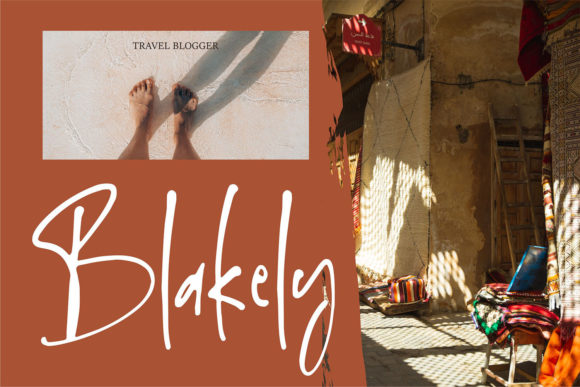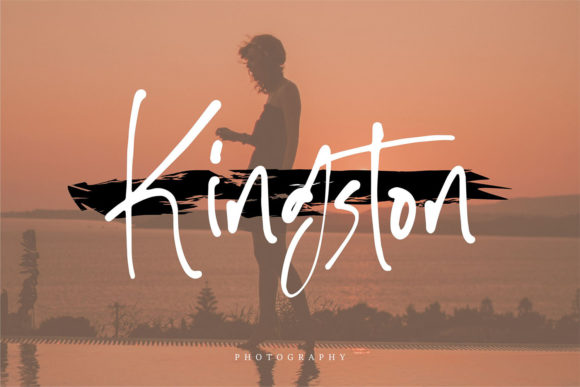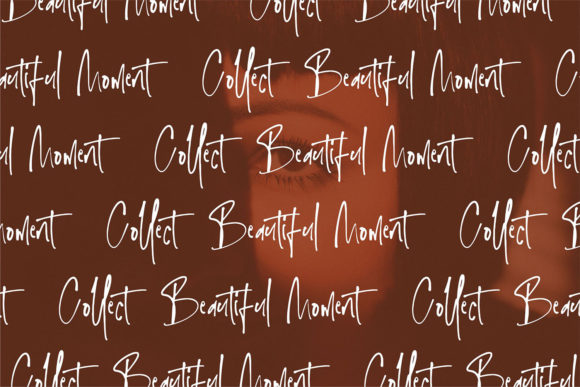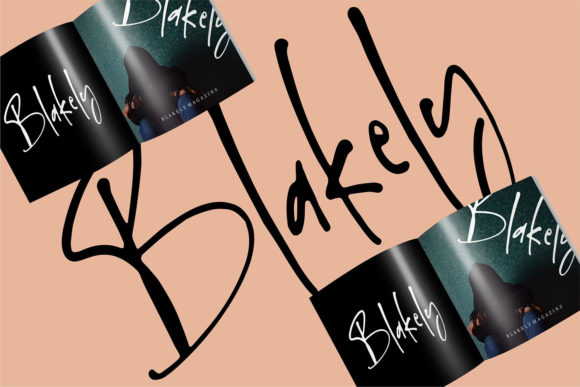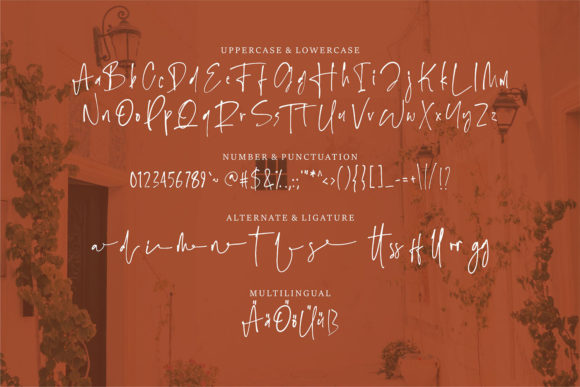
Unleashing the Charm of Averyl Font
Enter Averyl Font, a delicate and charming handwritten font designed to bring a touch of whimsy and elegance to your designs. Perfect for wedding invitations, thank you cards, and logos, Averyl Font is a versatile tool that adds a personal touch to any project. Its simplicity and beauty make it a valuable asset for designers looking to create unique and memorable designs.
Averyl Font Key Features
- Font Family: Averyl is a script font designed to resemble handwriting.
- Unique Characteristics: Averyl Font features a flowing, cursive design with subtle flourishes, giving it a personal and elegant feel.
Averyl Font Review
Averyl Font is a beautiful, elegant script font that I’ve had the pleasure of working with. It’s perfect for creating a sense of sophistication and refinement in your designs. ✨ The flowing connections between the letters are truly stunning, making it ideal for headings, titles, and logos.
Here are some of the things that work well with Averyl Font:
- ✨ Elegant and sophisticated feel
- ✨ Perfect for headings, titles, and logos
- ✨ Beautiful flowing connections between the letters
However, I do have a few concerns about the font:
- ⚠️ Limited character set – it’s not ideal for body text
- ⚠️ Not suitable for small text sizes – it can be difficult to read
- ⚠️ May require additional styling to make it more readable on certain devices
Overall, I think Averyl Font is a great choice for designers looking to add a touch of elegance to their designs. However, it’s essential to use it in the right context and with caution. With some careful planning and styling, Averyl Font can be a valuable addition to your design toolkit.
Tips for Getting the Most Out of Averyl Font
Use Averyl Font for creative projects that require a elegant, handwritten feel.
Combine Averyl Font with other fonts to create a unique and eye-catching design.
Experiment with different font sizes and colors to add depth and visual interest to your design.
Common Use Cases for Averyl Font
Averyl Font is ideal for:
Birth announcements and baby shower invitations
Quirky blog posts and social media graphics
Handmade and craft-related designs